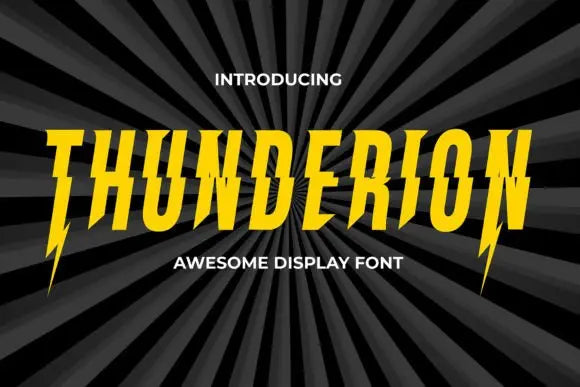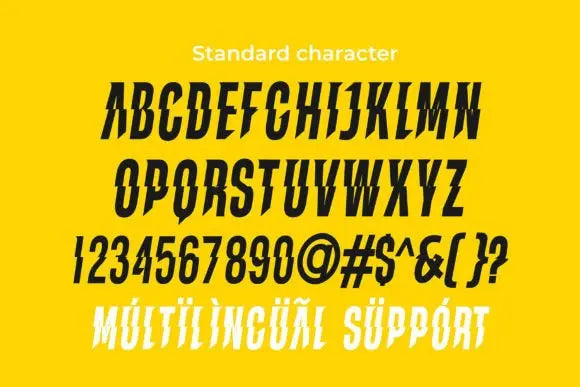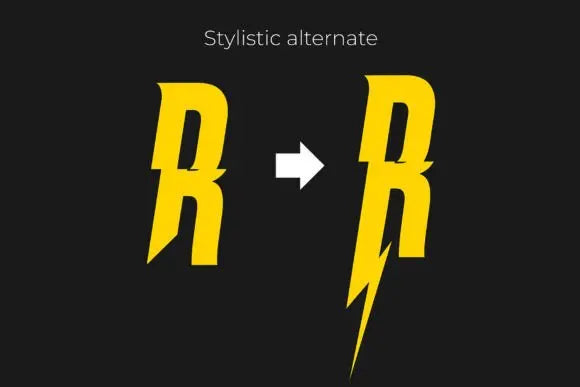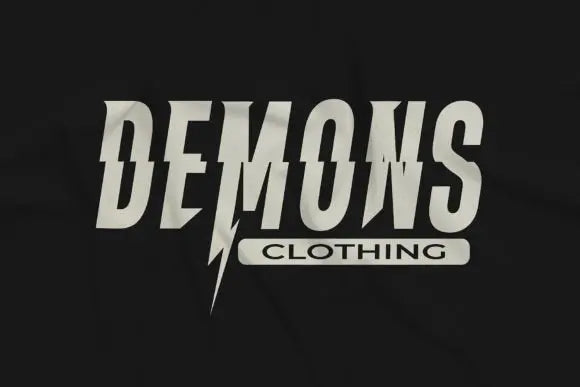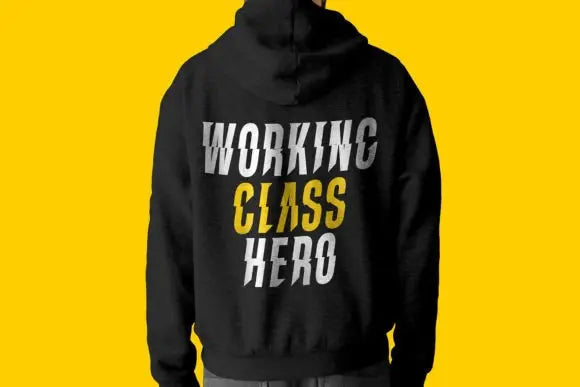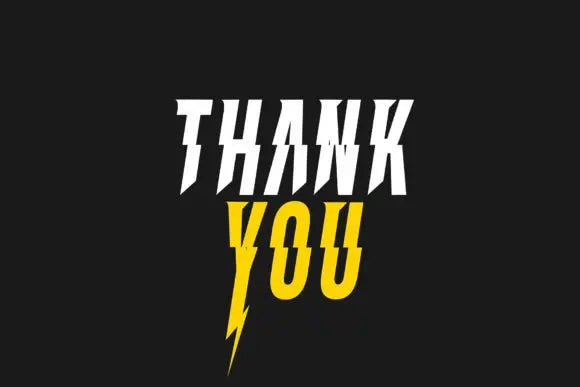
Thunderion Font
Electrify Your Designs with Thunderion Font
Why Thunderion Font is a Must-Have for Designers?
Need a futuristic, high-energy typeface? Thunderion Font is ideal for tech branding, esports logos, sci-fi posters, and digital marketing. If you want to create bold, cutting-edge designs, this font is a game-changer.
Thunderion Font – Speed, Power & Innovation
With its sleek, modern strokes, Thunderion Font is designed to capture the essence of technology and movement. Perfect for high-tech startups, esports branding, and sci-fi content, it ensures your typography is always ahead of the curve.
Key Features of Thunderion Font:
✦ Futuristic & Dynamic Design – Great for tech, esports, and digital branding.
✦ High-Impact Letterforms – Ensures clarity and modern aesthetics.
✦ Perfect for Digital & Print – Use it for logos, posters, and advertising.
Bring energy and futuristic appeal to your projects with Thunderion Font!